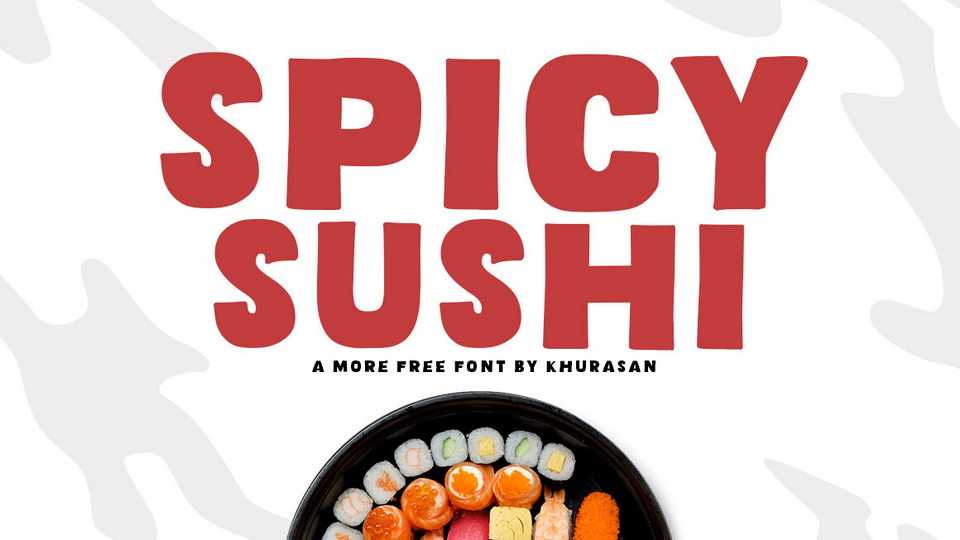
Download Spicy Sushi font, a hand-crafted typeface that adds a hearty dose of playful character and boldness to your designs. Its chunky lines and whimsical details make your text feel like a joyful celebration of bold expression.